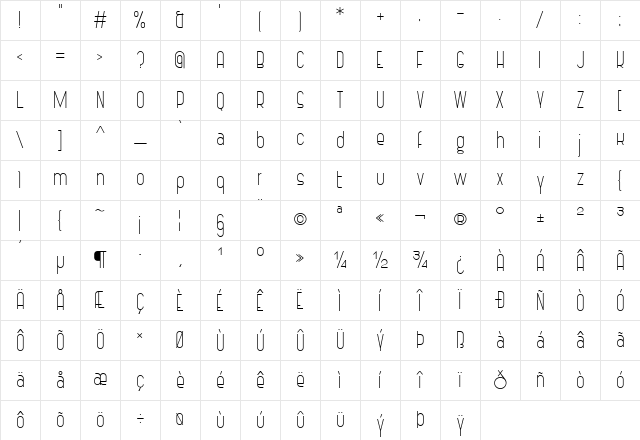
Vintage Straps Light
Foundry: Studio Monocromo
Designer: Studio Monocromo
Design Context for Vintage Straps
Vintage Straps wears its vintage influences proudly, with letterforms that recall mid-century signage, classic packaging, and nostalgia-driven design. Its slender proportions lend an understated elegance to any composition.
Font Pairing: Combine Vintage Straps with a simple slab or neutral sans - period-accurate companions reinforce the vintage feel without competing for attention.
Pro Tip: Lean into Vintage Straps's period character by pairing it with aged paper textures, muted colour palettes, and vintage illustration styles.